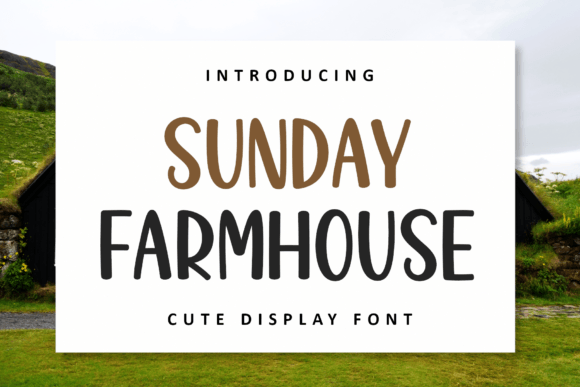
Get ready to add a touch of cuteness and quirkiness to your designs with the Sunday Farmhouse font! Created by the talented team at AV Type, this sans-serif font is the perfect choice for anyone looking to add a touch of fun and personality to their design projects.
Whether you're designing a poster, creating a birthday card, or even designing your own t-shirts, mugs, or tote bags, Sunday Farmhouse is the perfect choice. With its unique and eye-catching shape, this font is sure to grab the attention of anyone who sees it.
But Sunday Farmhouse isn't just cute - it's also incredibly versatile. You can use it for a wide range of handmade creations, from labels and packaging to social media graphics and more. Plus, with its keyword "Best Fonts For Cute", you know that it's the perfect choice for anyone looking to create something truly special.